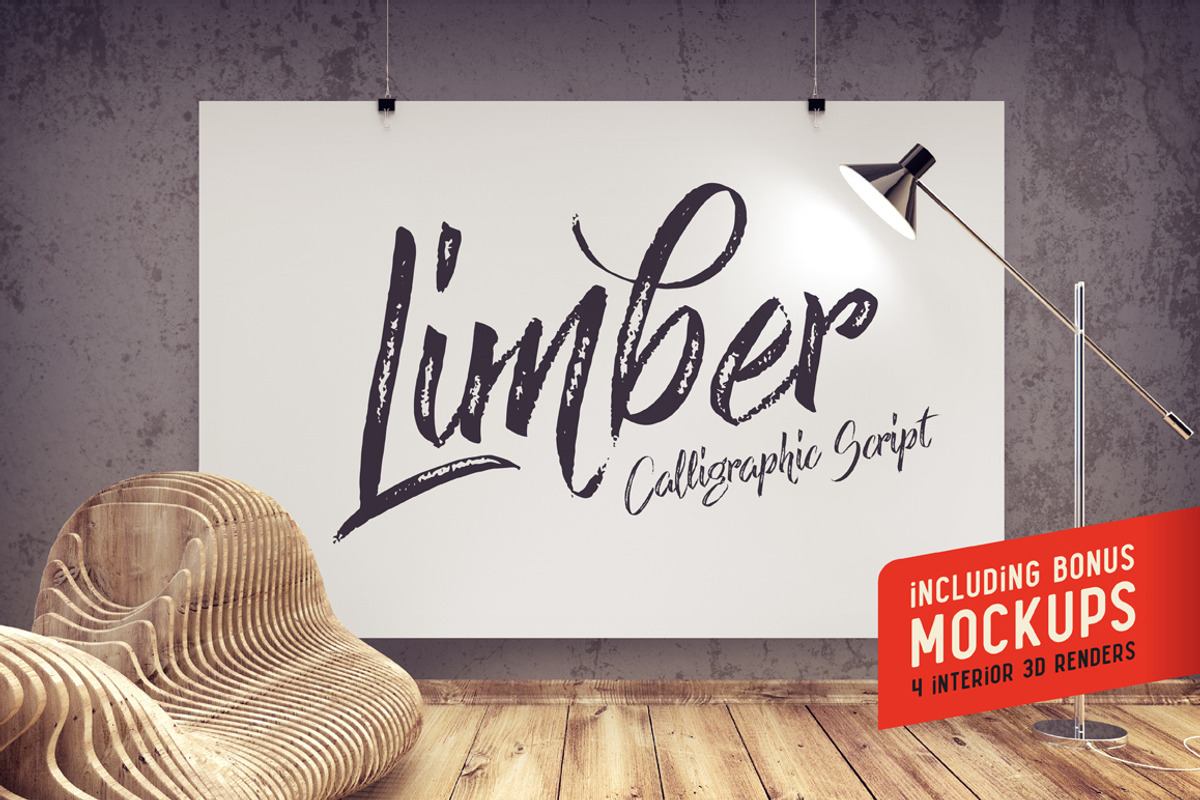
Limber script & Mockups Free Download
Limber Script & Mockups Free Download
Limber Script & Mockups Free Download is a smooth, elegant script font paired with a set of professionally crafted mockups—perfect for showcasing logos, quotes, branding, packaging, and social media visuals. With its flowing strokes, signature-style charm, and natural handwritten feel, Limber Script brings a personal and refined touch to your designs.
Whether you're a designer, small business owner, or content creator, this bundle offers both style and presentation power. The included mockups make it easy to display your work in a realistic and professional way, ideal for client previews or online portfolios.